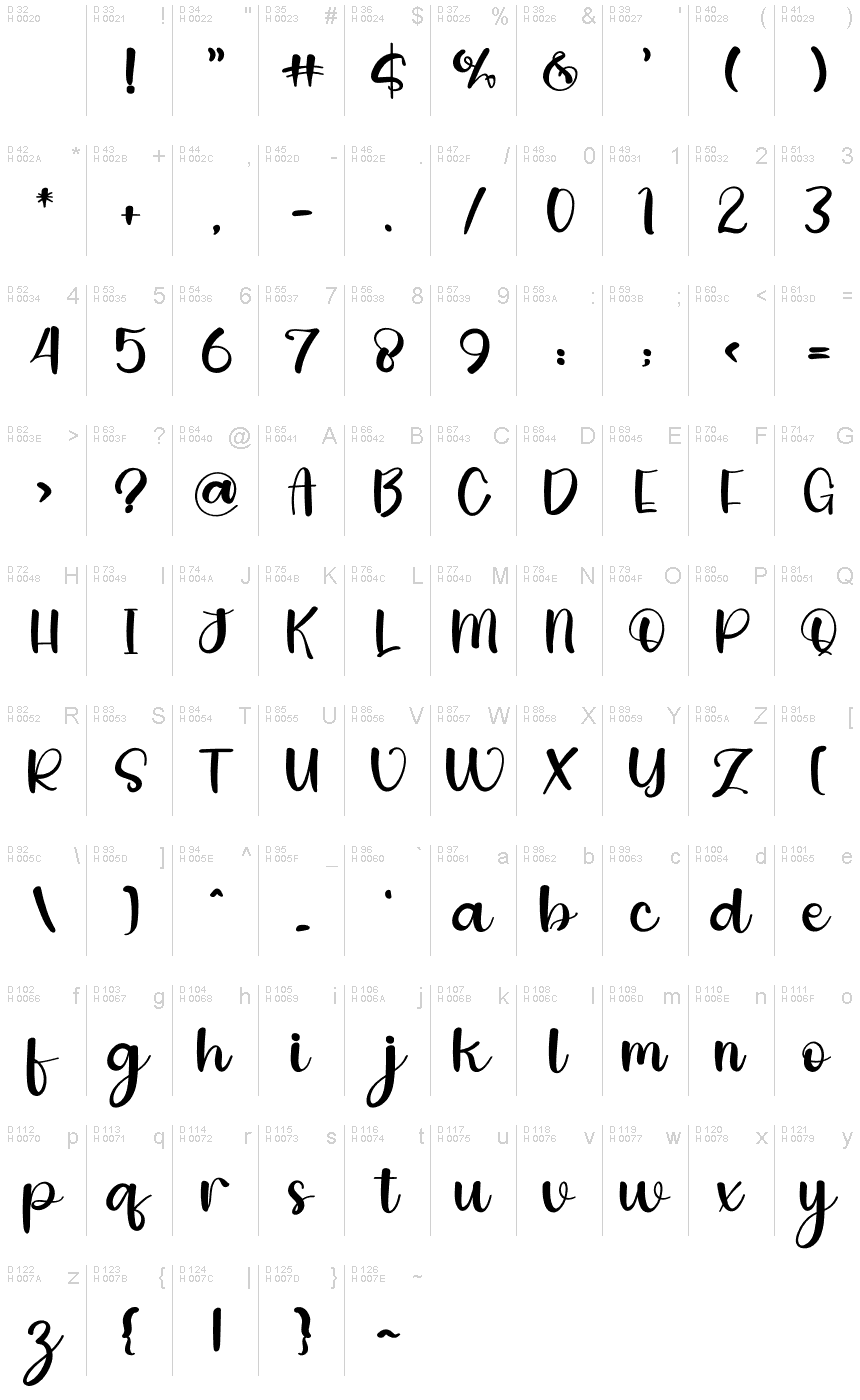
Allout
Allout, designed by Inermedia Studio, is a captivating smooth brush font that adds a touch of creativity to any project. Its semi-bold weight ensures a strong presence while maintaining elegance.
Ideal for branding materials, Allout will make your logos and packaging designs stand out with its artistic flair. Enhance your social media posts and website headers with this eye-catching font to captivate your audience. With Allout's fluid strokes and modern appeal, it is also perfect for fashion magazines and blog titles, delivering a trendy and sophisticated look.